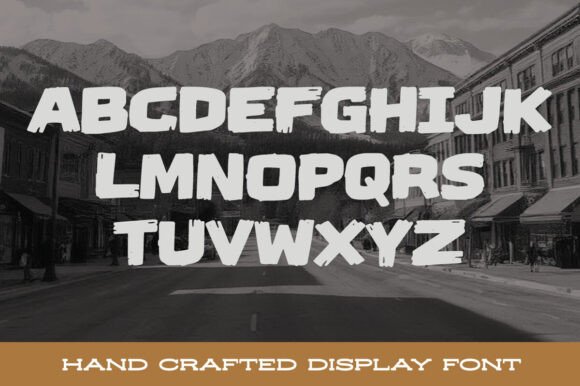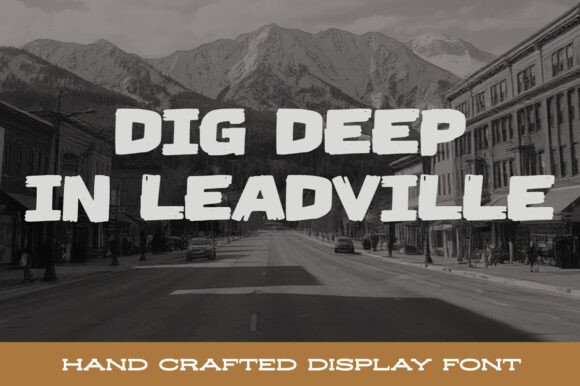
Introduction to Leadville Font
Do you remember the thrill of rummaging through your grandfather’s attic, uncovering old signs and posters with worn, hand-painted lettering? For designers, this nostalgic feeling can be a powerful catalyst for creative projects. As we search for the perfect design resource, we often find ourselves drawn to fonts that evoke a sense of history and authenticity.
Enter the Leadville Font, a bold, hand-crafted typeface that embodies the rugged spirit of the Old West and industrial-era lettering. Its unique texture, reminiscent of a transparent background with subtle brush strokes, adds a touch of warmth and character to any design.
With its high-quality design and free download, the Leadville Font has become a valuable asset for designers seeking to add a touch of vintage charm to their projects. Whether you’re working on a bold statement design or a vintage branding campaign, this font is sure to make your creative vision stand out.
Key Features of Leadville Font
- High-quality, vector-based font designed for creative projects and presentations.
- Transparent background, making it easy to use with any design resource.
- Designed to be highly legible at various resolutions and sizes, from 10pt to 200pt.
- Unique, handcrafted style with a rustic, vintage feel, making it ideal for distressed or vintage-themed designs.
- Includes a comprehensive character set, including uppercase and lowercase letters, numbers, and punctuation marks.
Honest Review: Leadville Font
I recently had the chance to work with the Leadville Font, and I must say it’s been a game-changer for my creative projects. The first thing I noticed was the high quality of the font, which made it perfect for my design resource needs.
- ✨ High-quality design that makes it perfect for creative projects
- ✨ Easy to download and use, with a transparent background that makes it easy to layer
- ⚠️ Limited character set, which may not be suitable for all design projects
- ⚠️ Not suitable for use in small text sizes, as it can become blurry
Overall, I’m impressed with the Leadville Font. It’s a high-quality design resource that’s perfect for creative projects. While it may have some limitations, I think it’s well worth considering for designers who need a reliable font for their designs.
For the best results, use the Leadville Font on high-quality designs, such as business cards, brochures, and websites. This font is also great for creating a cohesive brand identity. Additionally, consider pairing the Leadville Font with a transparent background for a clean and modern look.
Common Use Cases for Leadville Font
The Leadville Font is ideal for creative projects, such as logos, infographics, and social media graphics. It’s also great for presentations, documents, and business materials that require a professional touch. With its clean and modern design, the Leadville Font is a valuable design resource for any project.